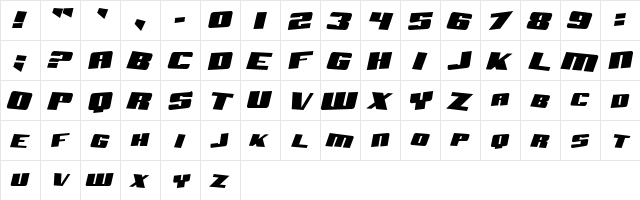
Aftershock Debris Solid Italic
Design Context for Aftershock Debris Solid Typeface
Aftershock Debris Solid is a composed and adaptable typeface that performs quietly and consistently across a wide range of design contexts. The slanted form adds forward momentum and visual energy.
Pro Tip: Try Aftershock Debris Solid for annotation and caption copy alongside an upright companion — the contrast in angle creates a dynamic but ordered typographic system.